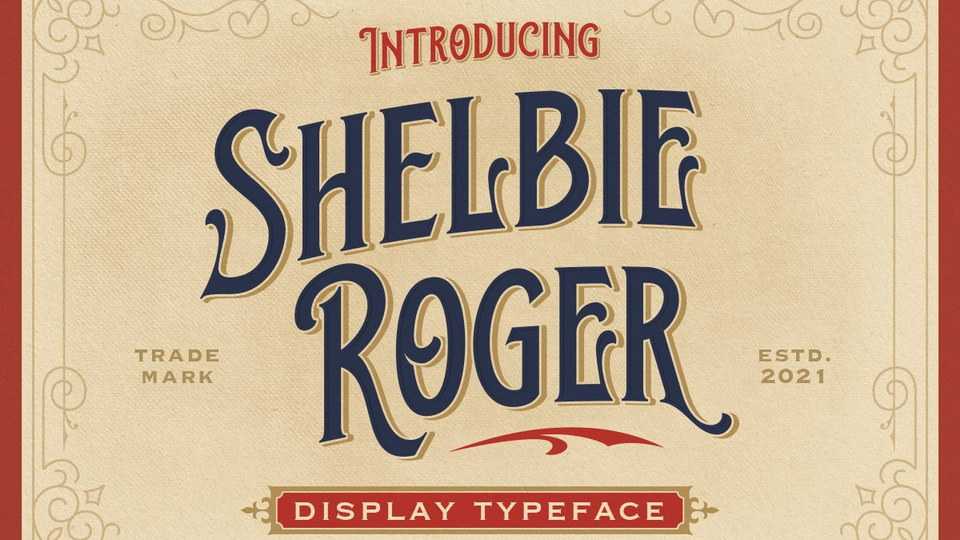
Download Shelbie Roger is a ornamental serif with a classic look and a vintage feel, inspired by 60s and 70s signages. Shelbie Roger font is perfectly made to be applied especially in logo, and the other various formal forms such as labels, logos, packaging or any type of advertising purpose.